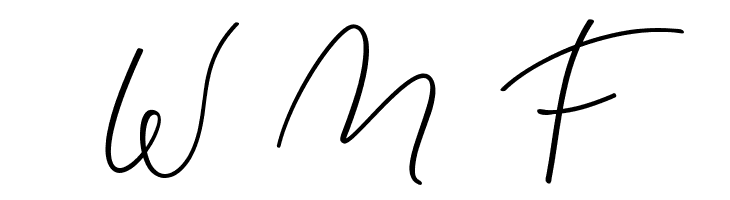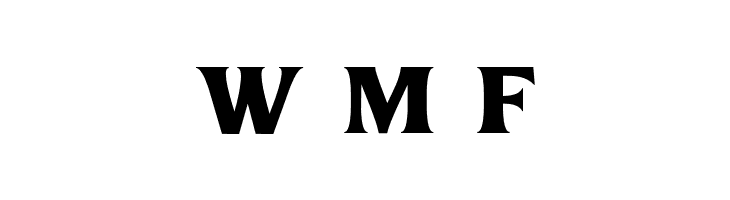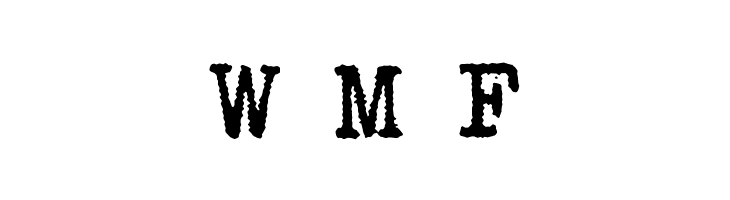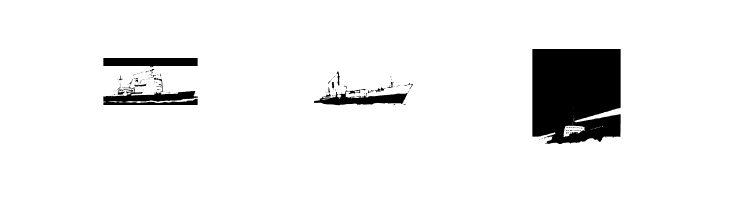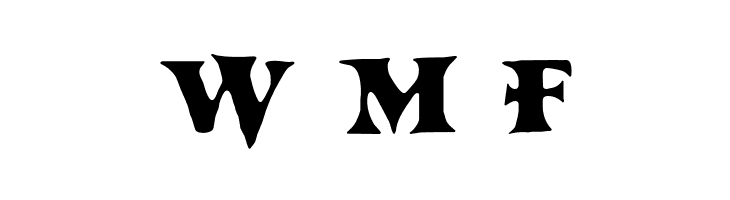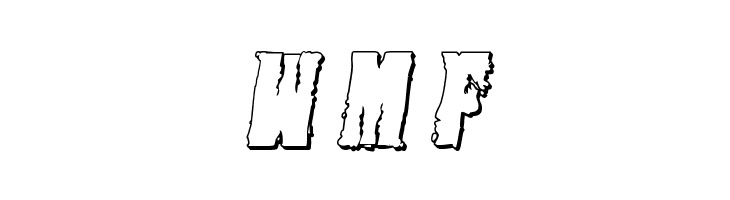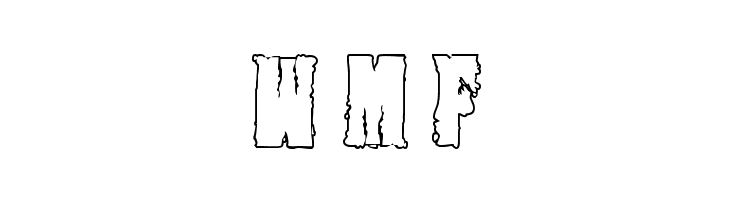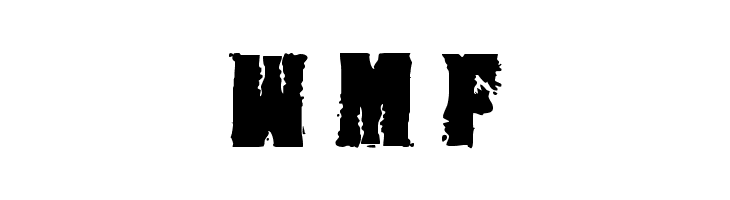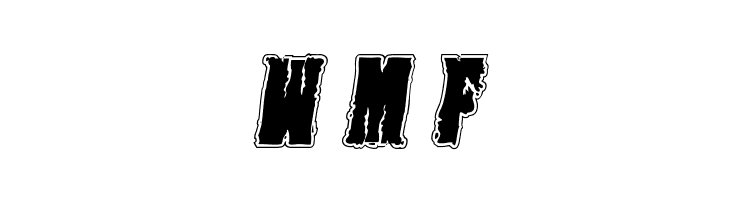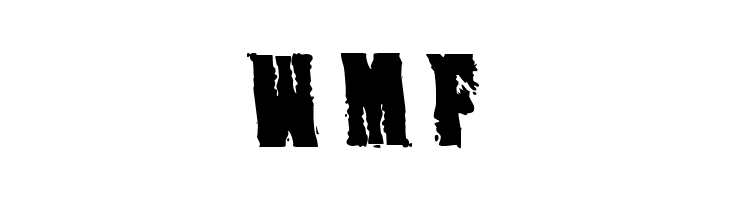
• BoatsTraces
A pictorial dingbat set of diverse boat and ship illustrations.
• Bob's Burgers
A bold, outlined font with a playful, cartoonish style.
• Bob's Burgers 2
A bold, 3D cartoonish font with a playful shadow effect.
• Boceto St
• Bodidota
A classic serif font with high contrast and elegant serifs.
• BodonisBulemy
An elegant serif font with high contrast and sharp serifs.
• Bodonitown
A classic serif font with high contrast and elegant proportions.
• BodoniTwinsCaps
A bold, high-contrast font with elegant serifs and a luxurious style.
• Bog Beast 3D
A bold, distressed 3D font with a rugged, textured appearance.
• Bog Beast 3D Italic
A bold, 3D italic font with a rugged, textured appearance.
• Bog Beast College
A bold, distressed font with a rugged, grunge-like texture.
• Bog Beast College Italic
A bold, distressed, and italicized font with a rugged, edgy style.
• Bog Beast Condensed
• Bog Beast Condensed Italic
A bold, rugged, condensed italic font with a textured, distressed appearance.
• Bog Beast Expanded
A bold, distressed font with rugged, weathered edges.
• Bog Beast Expanded Italic
A bold, rugged, expanded italic font with a distressed, textured appearance.
• Bog Beast Italic
A bold, rugged font with distressed, jagged edges and a wild appearance.
• Bog Beast Leftalic
A rugged, distressed font with a bold, impactful style.
• Bog Beast Outline
A bold, rugged outline font with a distressed, organic appearance.
• Bog Beast Outline Italic
A bold, rugged outline font with jagged edges and a textured appearance.
• Bog Beast Regular
A bold, distressed font with a rugged, organic texture and jagged edges.
• Bog Beast Rotatalic